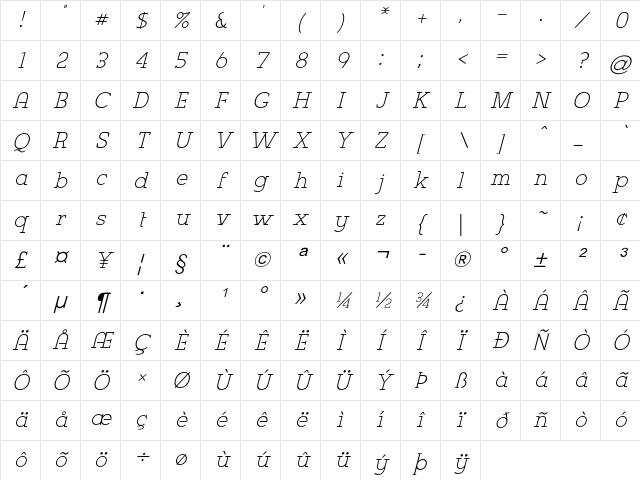
Branford Italic
Design Context for Branford
Branford is a composed and adaptable typeface that performs quietly and consistently across a wide range of design contexts. The slanted form adds forward momentum and visual energy.
Pro Tip: Use Branford for emphasis, pull quotes, and subheadings where its slanted energy can add rhythm to the layout.